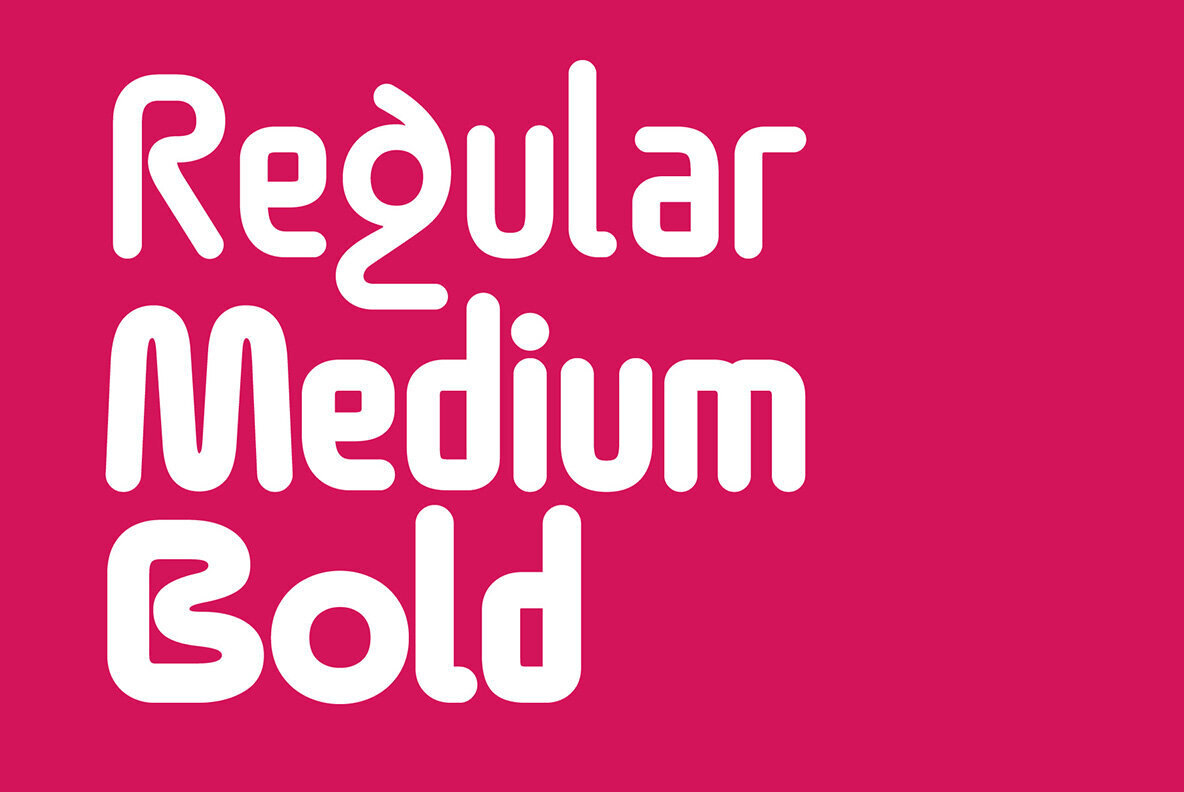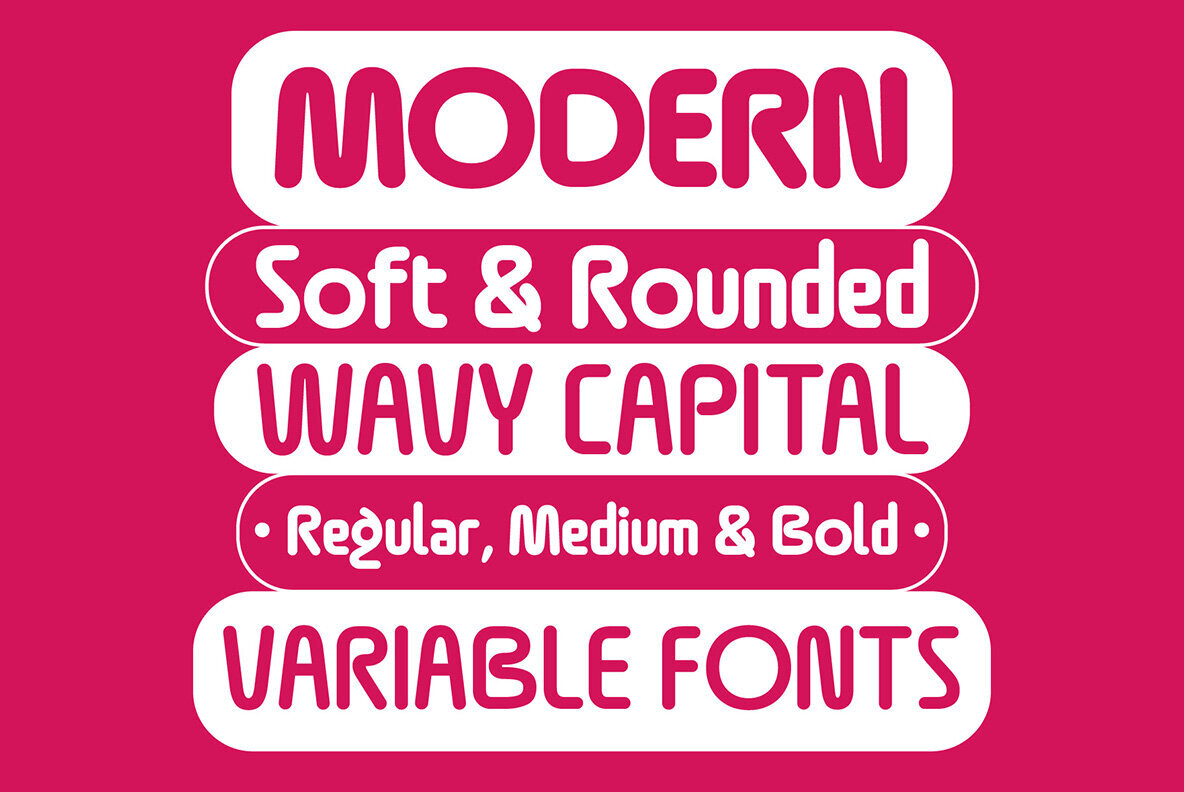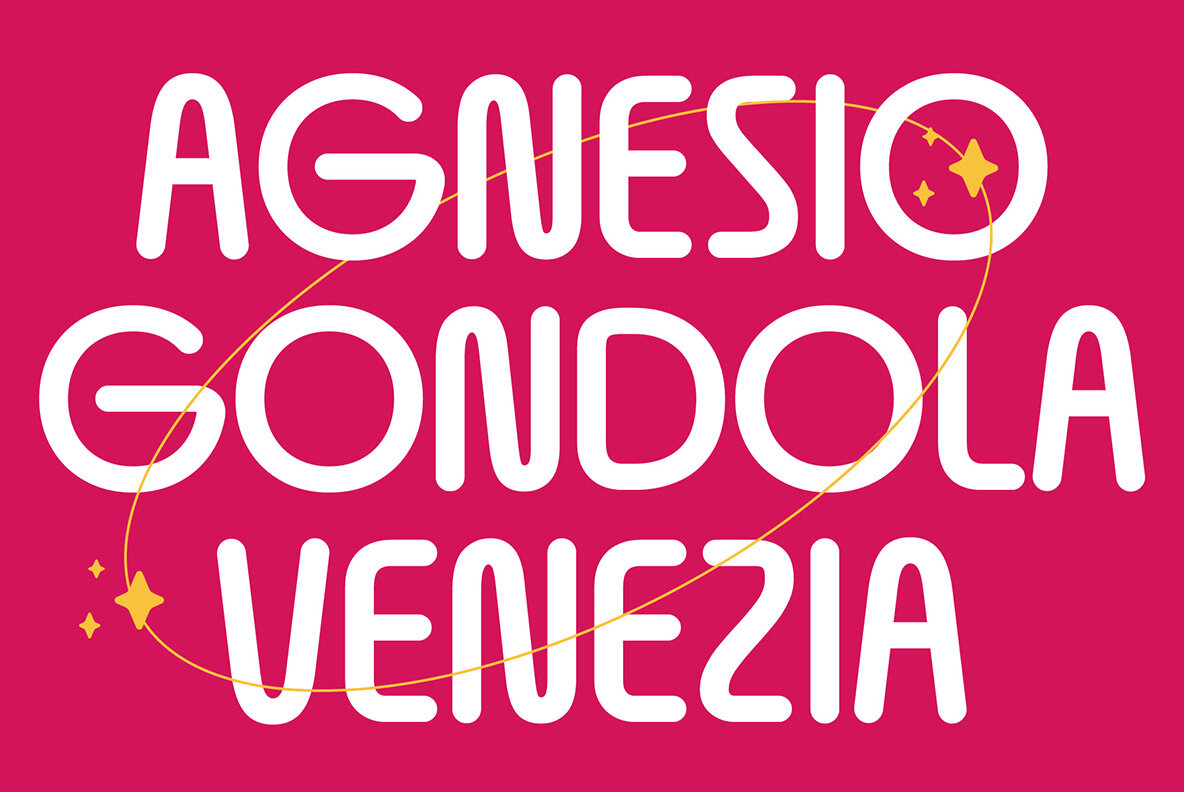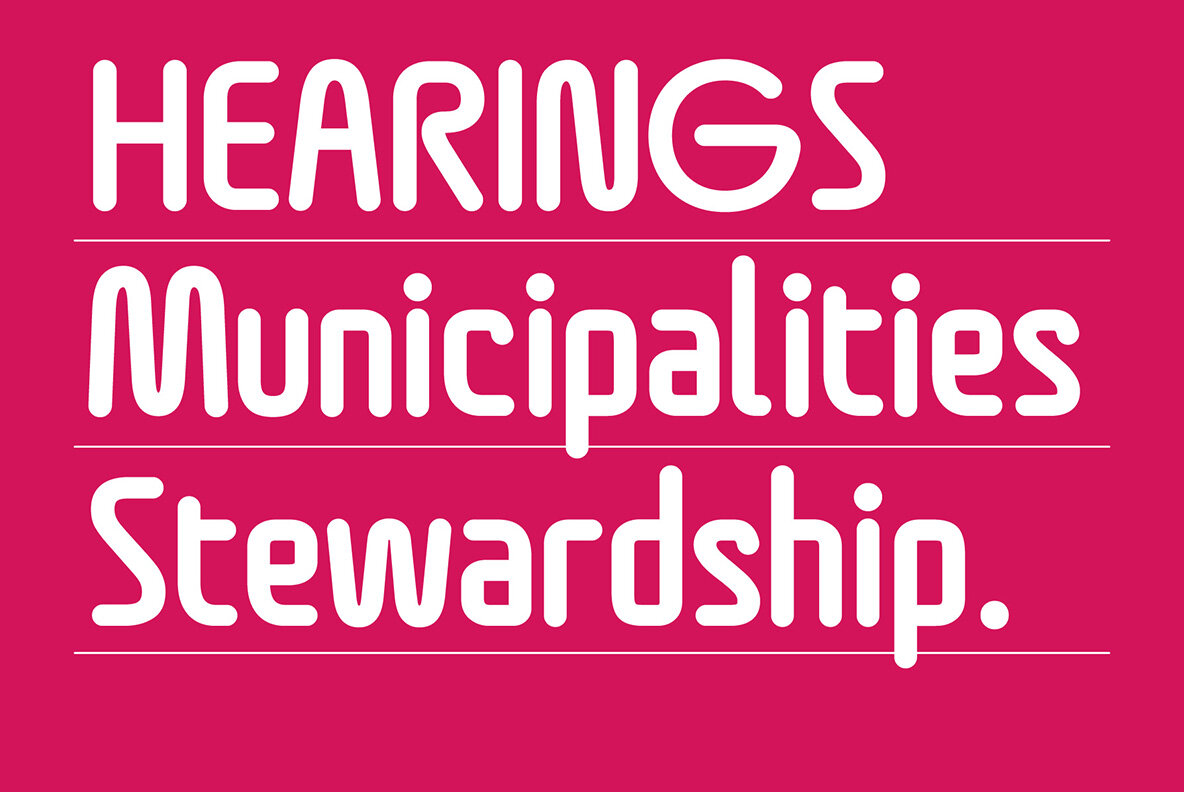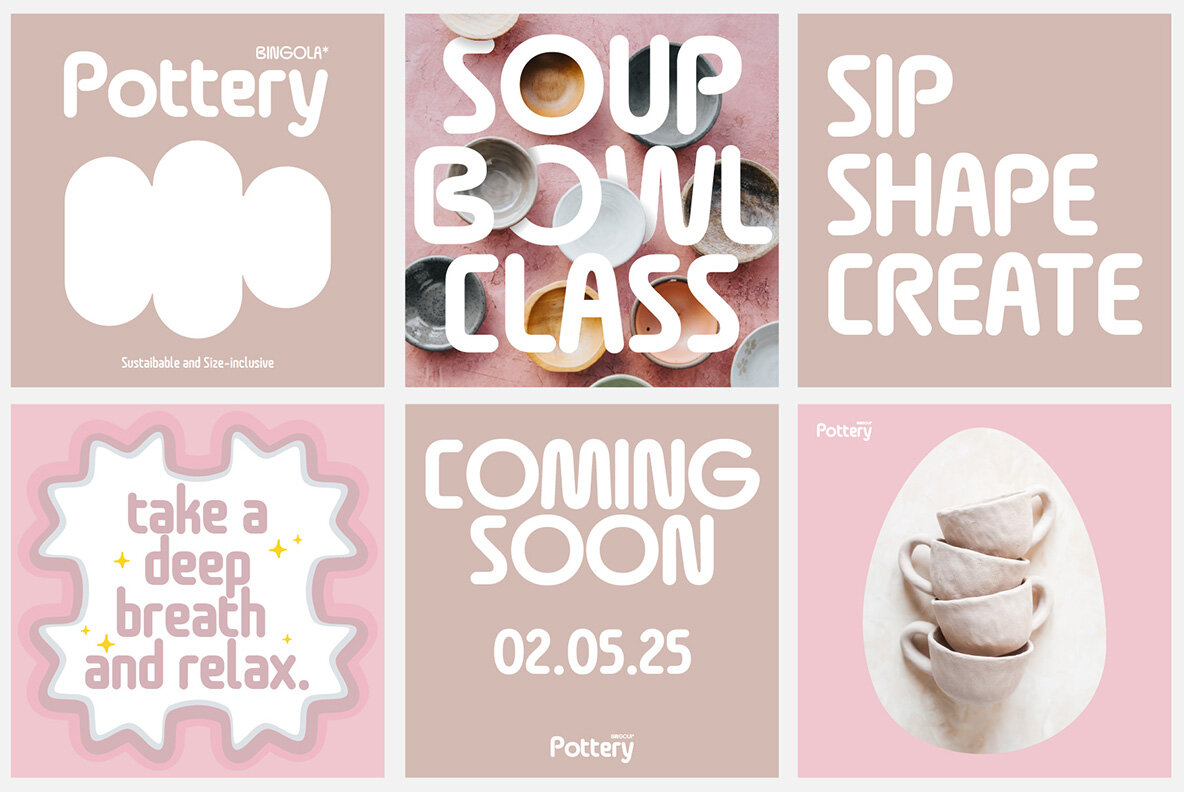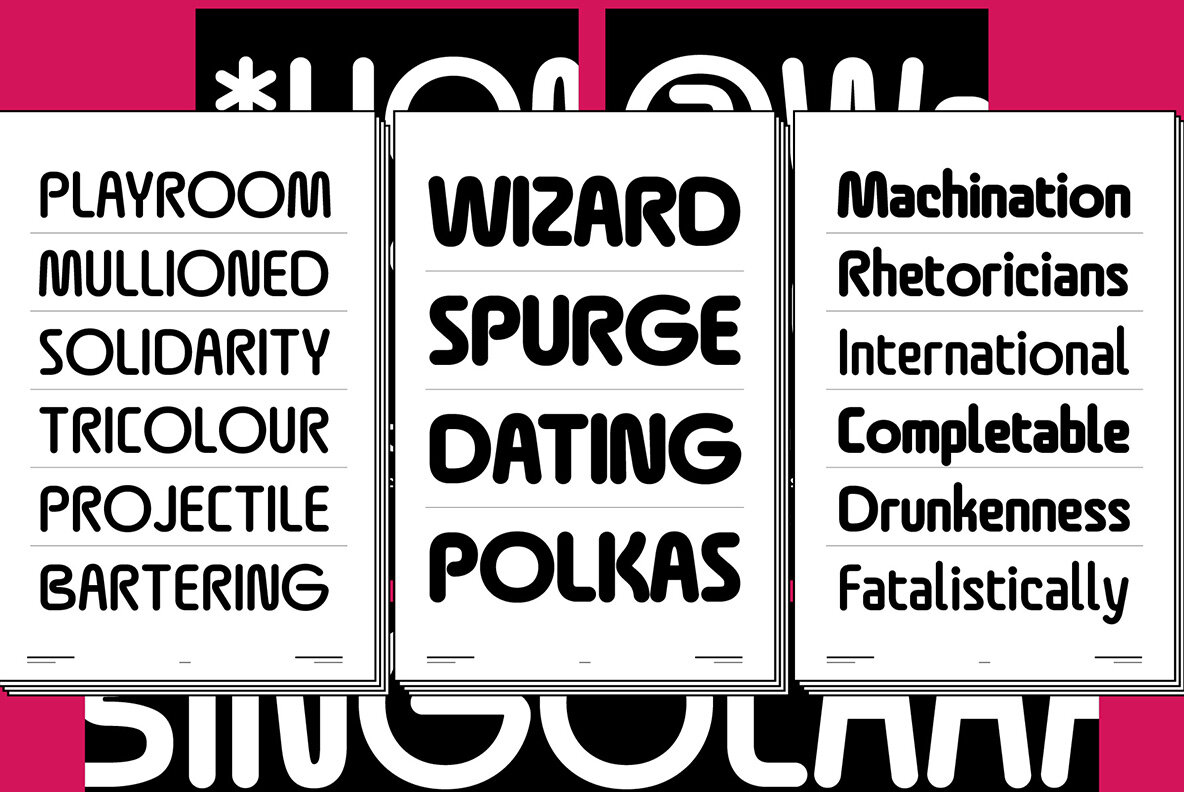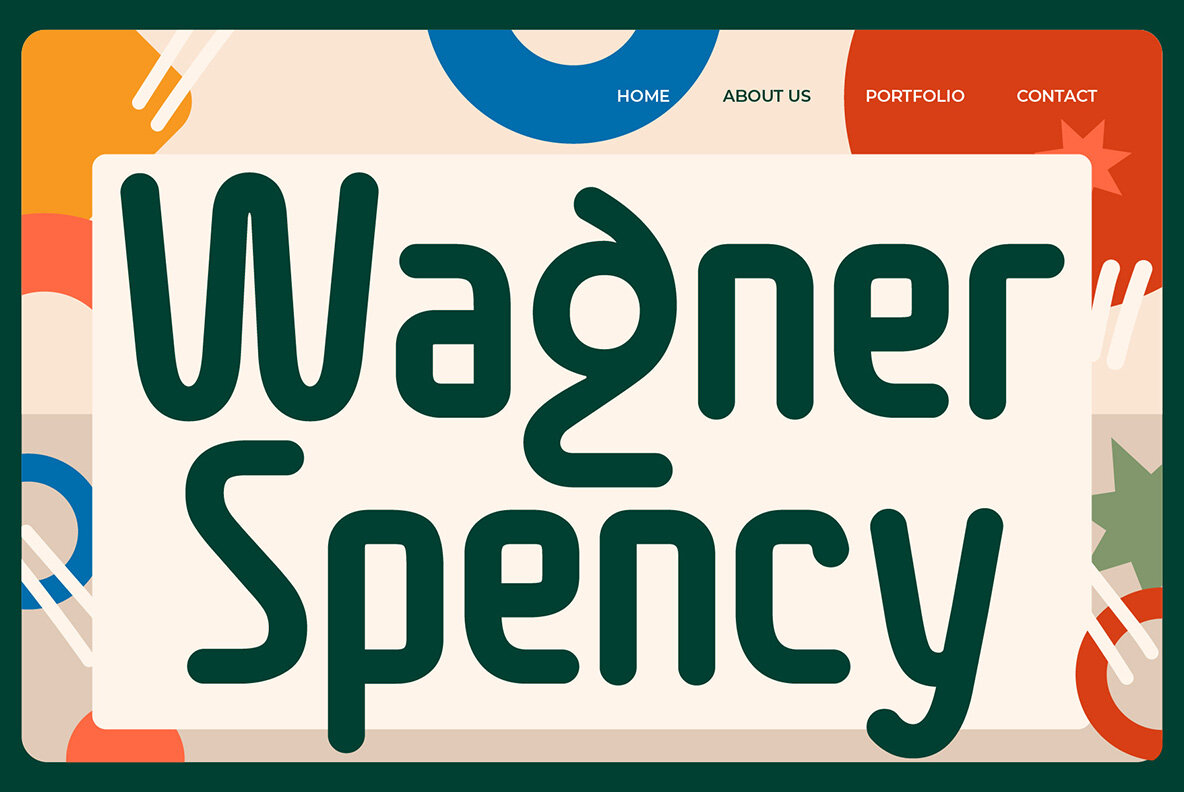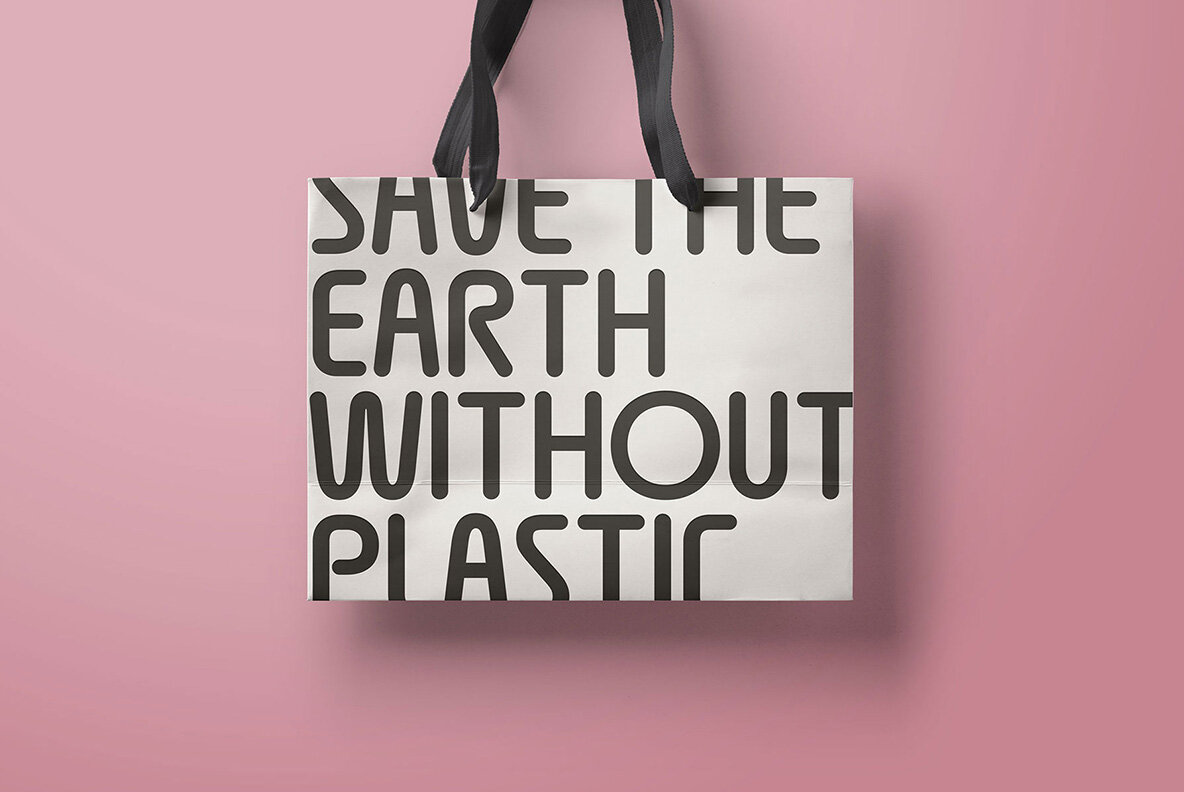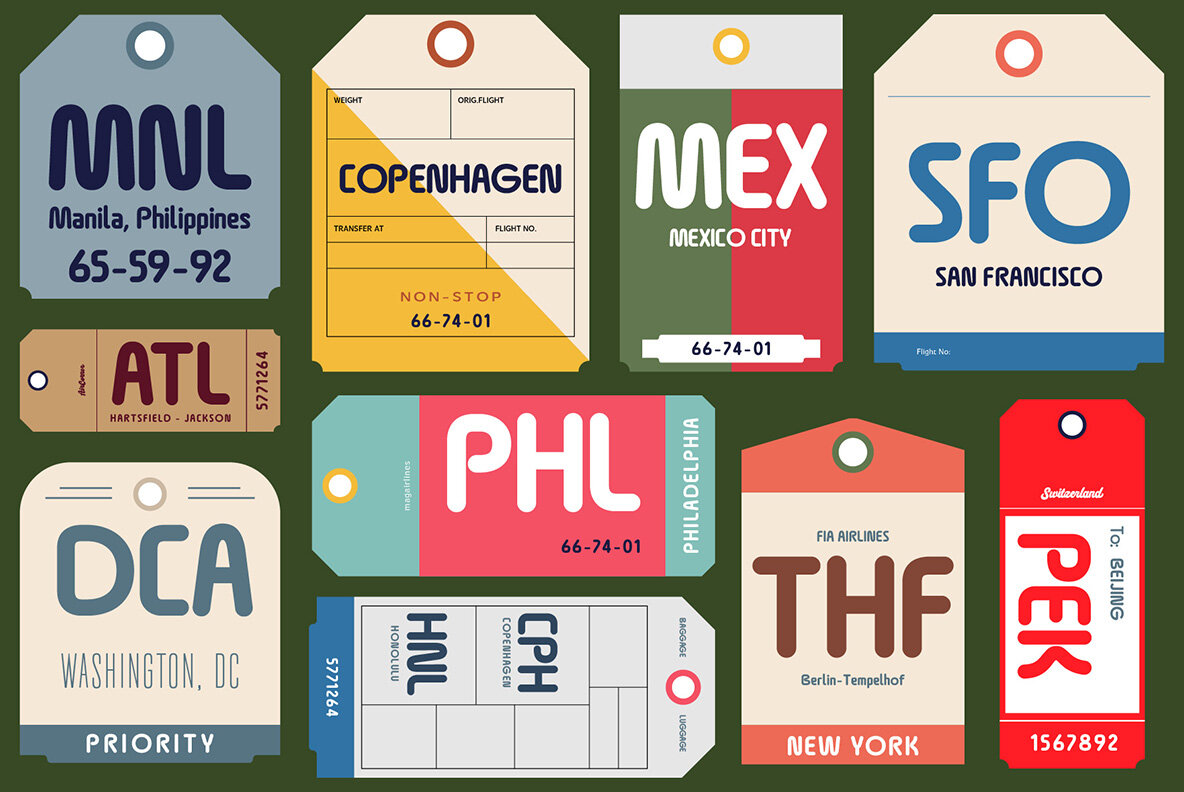
Bingola Font
Bingola is a fun and creative display font designed by AFStudio, featuring soft, rounded edges and a unique combination of wavy uppercase and squared lowercase characters. With its friendly and modern look, Bingola is perfect for eye-catching headlines, branding, packaging, and playful designs. Features: Bingola’s bold and dynamic personality makes it an excellent choice for creative projects that need a touch of fun and originality. Whether you're designing a playful brand identity or a vibrant advertisement, this font ensures your message stands out with charm and energy!